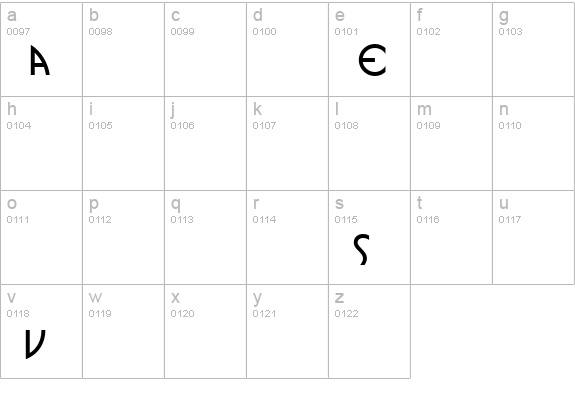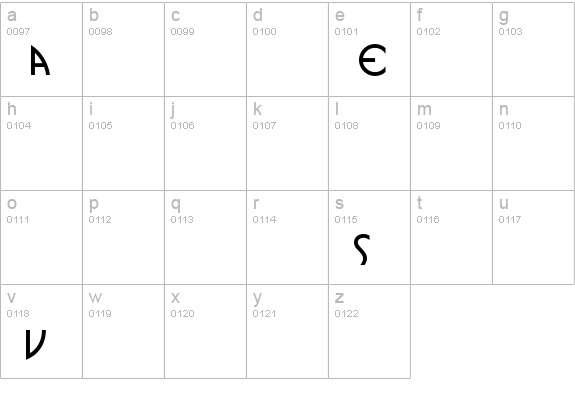
The FFX Buster font is a modern and bold typeface that exudes confidence and strength. Its sharp lines and sleek design make it perfect for adding a touch of edginess to any project. This versatile font is ideal for headlines, logos, posters, and more. Best of all, it is available for free download at FontsMarket.com, so you can easily add this dynamic font to your collection without breaking the bank. Embrace the power of FFX Buster and make a bold statement with your design projects today!